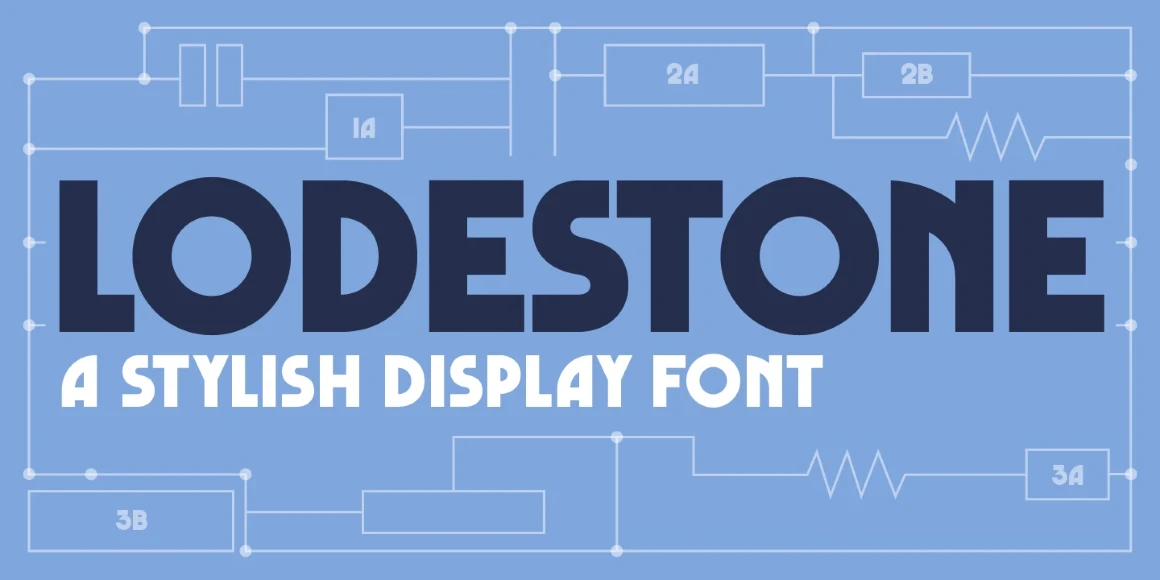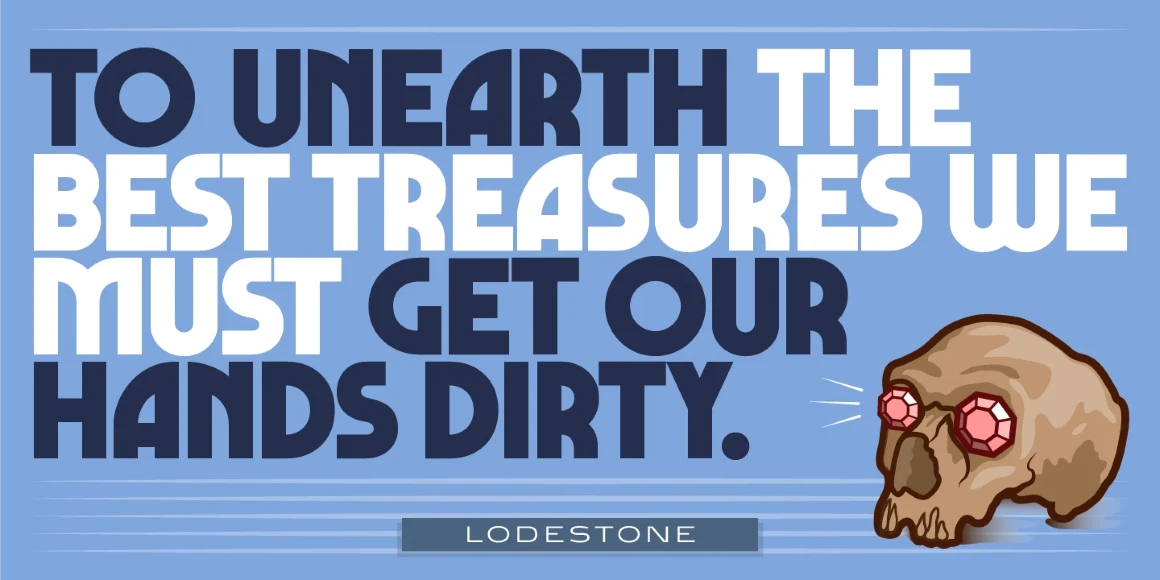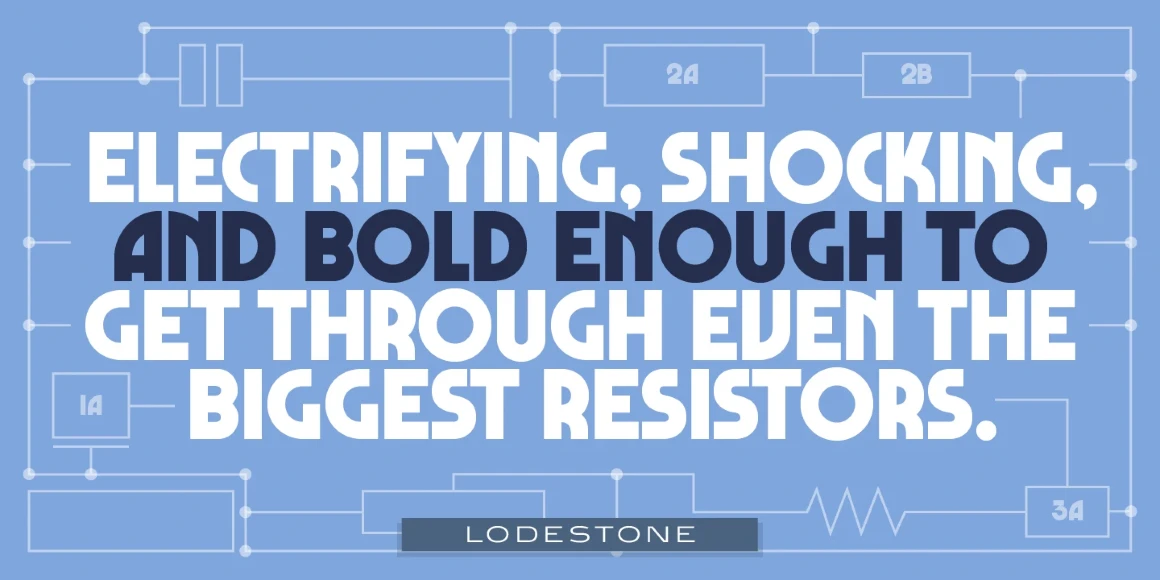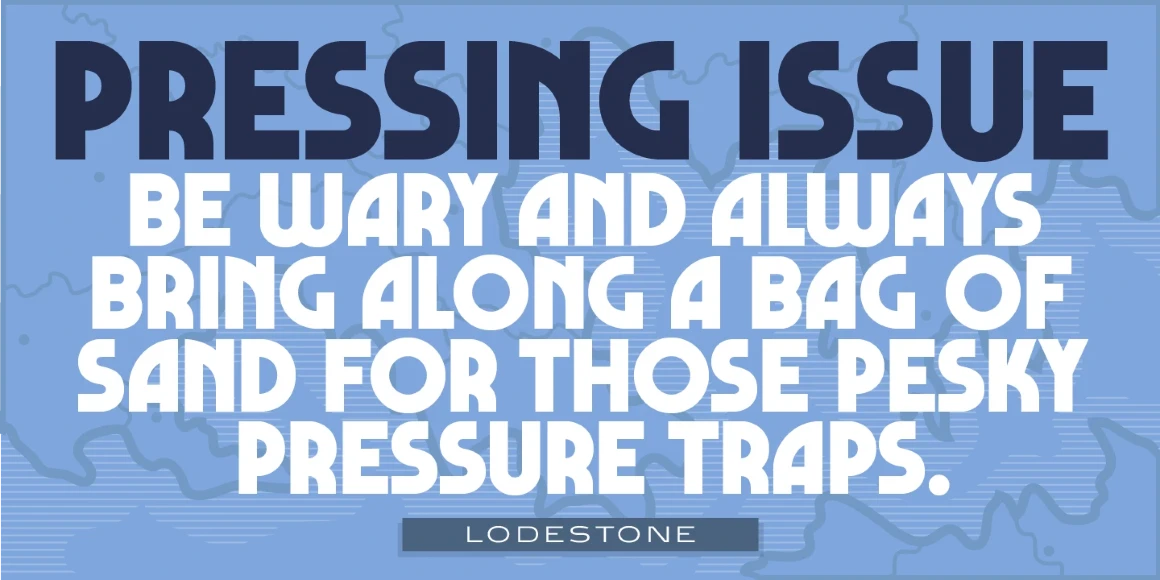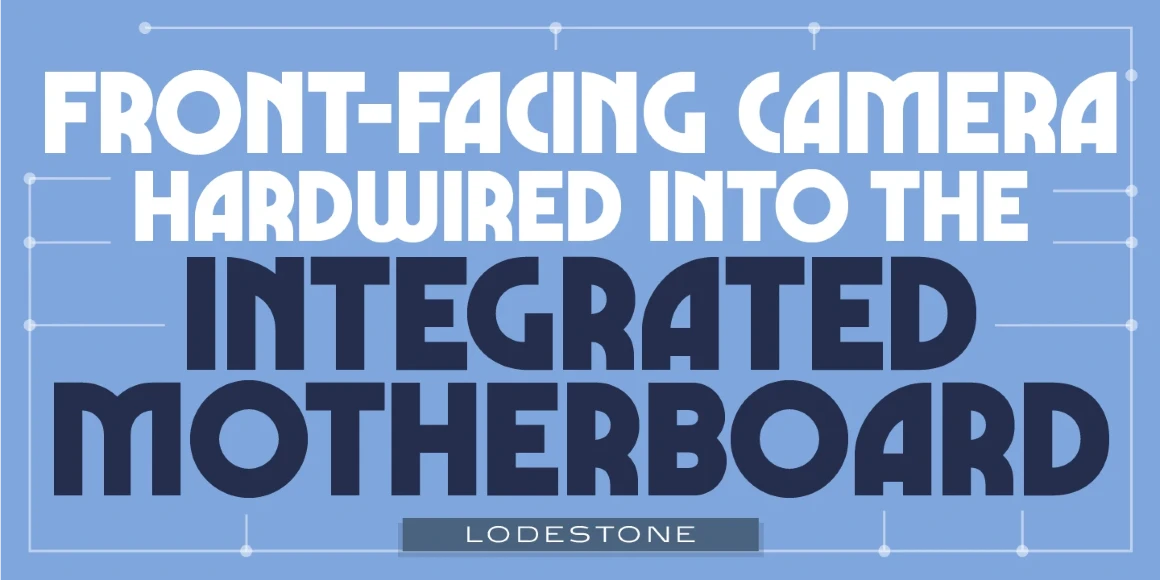
Lodestone
Lodestone is a sans serif decorative typeface, and was created by Steve Jackaman (ITF) in 2017. The original design was known as ‘Marvin,’ and was created by Face Photosetting (London) in the early 1970’s. Since the name ‘Marvin’ was in use by another foundry at time of publication, ‘Lodestone’ was born. Lodestone has a clean, retro feel, and is electrifying at display sizes.